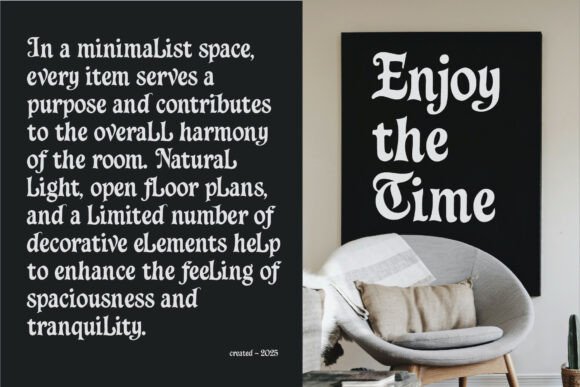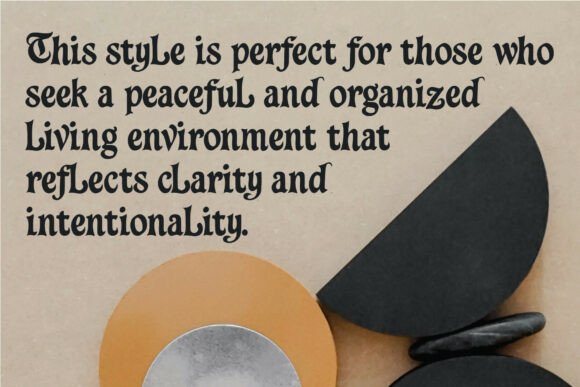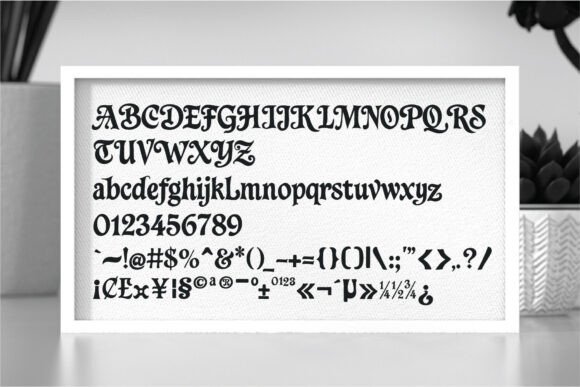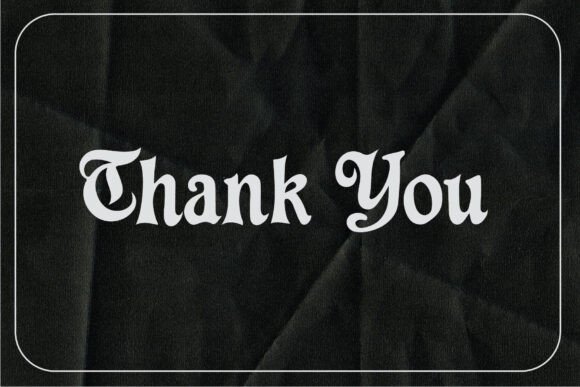
Introduction to Quick Bean Font
Quick Bean is a retro-inspired decorative serif font with hand-drawn charm and bold personality.
With its whimsical curves and vintage aesthetic, this font is ideal for nostalgic branding, coffee shop logos, posters, and artistic headlines It blends a playful spirit with old-school flair for a truly unique look.
Key Features of Quick Bean Font